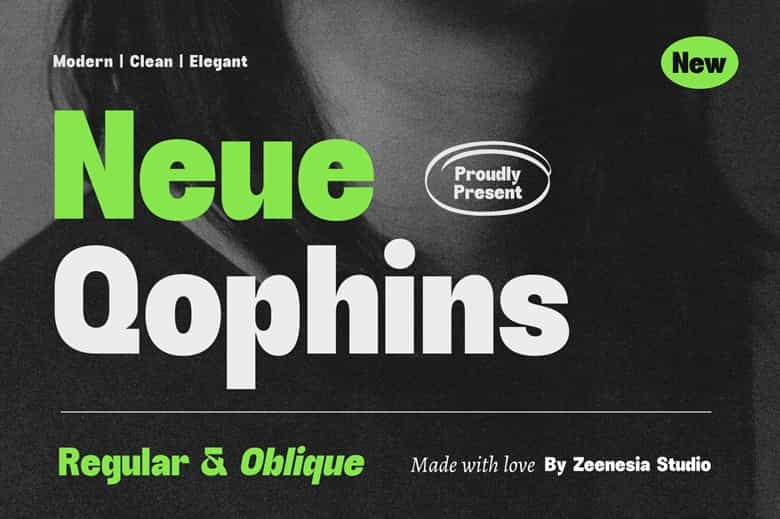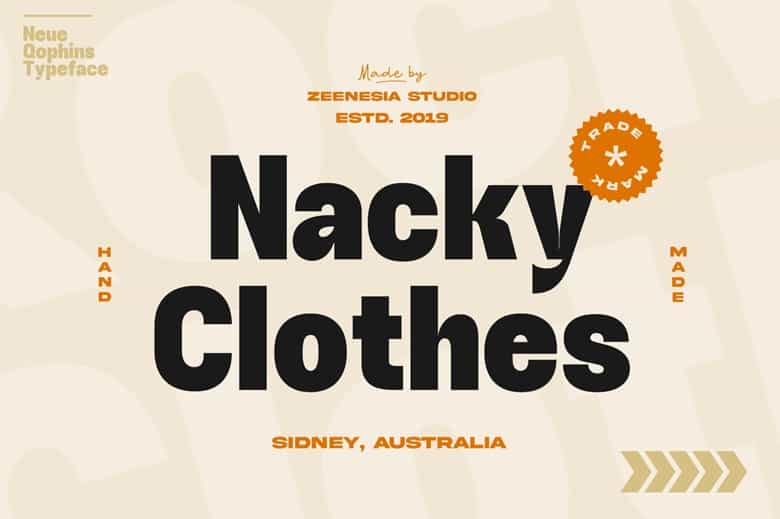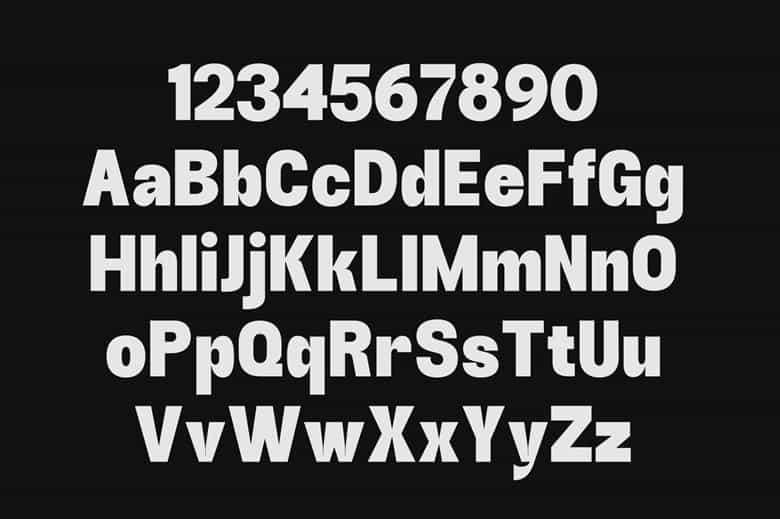
Neue Qophins is a creative and office sans-serif font that was designed to provide a more modern and more assertive look than many other fonts. Thanks to its clear and strong design in the Bold weight, with the Regular and Oblique styles, Neue Qophins can be used in branding projects, as well as in print media projects. This typeface has no elaborate edges or sharp ends which gives it a corporate look and feel without loosing its individuality.